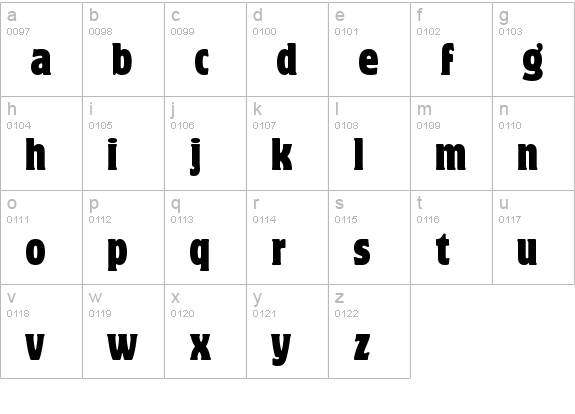
Motter Corpus Cond ICG is a distinctive, condensed-width variant in the Motter typeface family \xE2\x80\x94 well suited to design and typography projects.
Motter Corpus Cond ICG is a sleek and modern font that exudes sophistication and elegance. Its condensed design allows for efficient use of space while maintaining readability and impact. The sharp edges and clean lines give it a contemporary feel that is perfect for a wide range of design projects. What sets Motter Corpus Cond ICG apart is that it is not only stylish and versatile, but also free to download. You can easily access this high-quality font at FontsMarket.com and enhance your creations with its professional and polished look. Whether you're working on branding materials, editorial designs, or digital projects, Motter Corpus Cond ICG is a fantastic choice that will elevate your work to the next level.